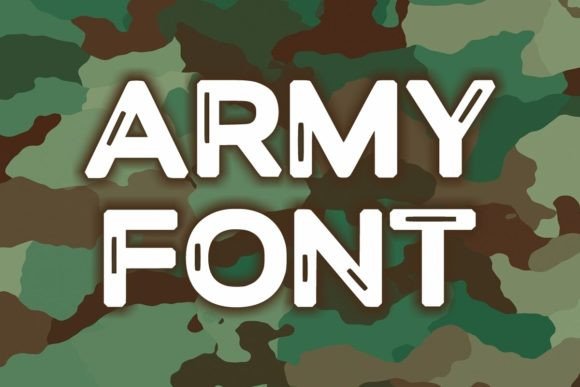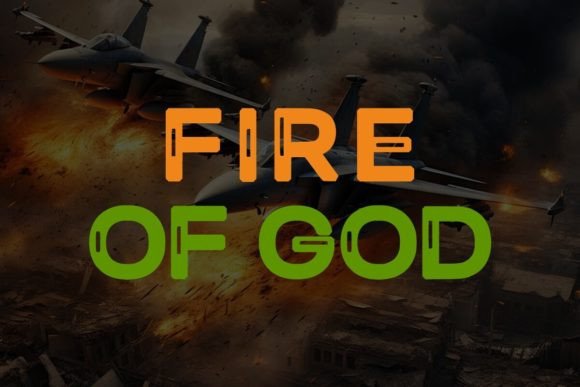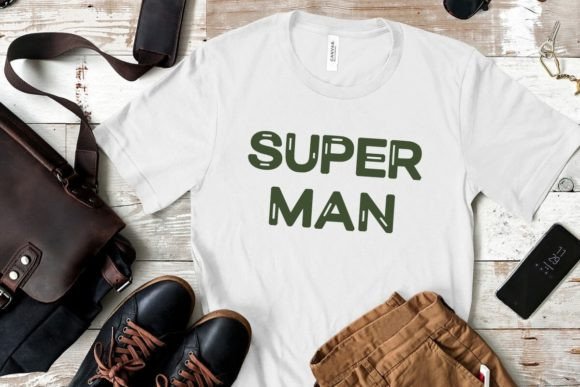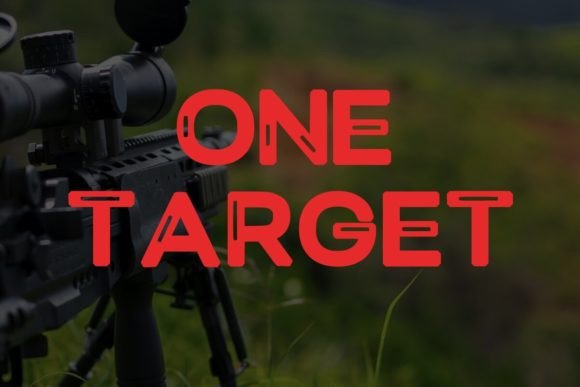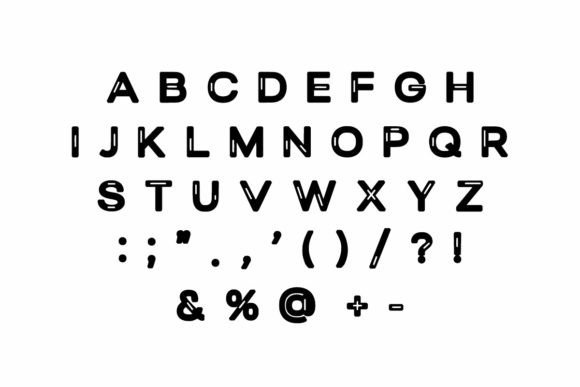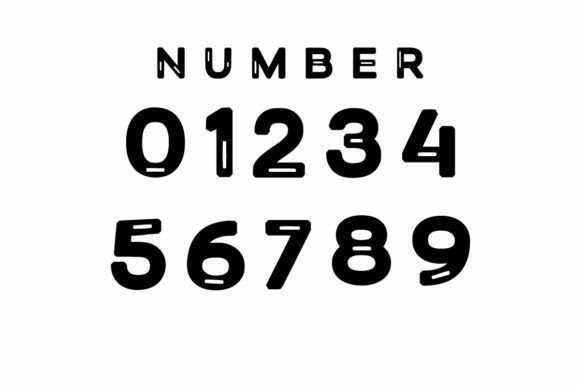
Introduction to Sniper X Font
You’ve spent hours pouring over design concepts, tweaking colors and layouts, but that one final touch is still missing. The perfect font can elevate a project from good to great, and that’s where Sniper X Font comes in.
With its dynamic effect and unique charm, Sniper X Font is the ideal choice for designers looking to add a touch of high-quality flair to their creative project. Whether you’re working on a sporting event logo or a monogrammed design, this bold display font is sure to make a statement.
What sets Sniper X Font apart is its versatility – perfect for use on a transparent background or as a focal point in your design. And the best part? It’s a free download, making it an invaluable resource for designers of all levels.
Key Features of Sniper X Font
- High-quality, professional design suitable for creative projects
- Transparent background for seamless integration with various design elements
- Font size: 256 glyphs, covering a wide range of characters and symbols
- High-resolution design, perfect for printing and digital applications
- Unique, modern aesthetic that can add a touch of sophistication to any design
Honest Review: Sniper X Font
I recently had the chance to work with the Sniper X Font, and I must say it’s a solid addition to any designer’s toolkit. ✨ The font’s high quality is evident from the get-go, with crisp lines and a clean aesthetic that makes it perfect for a wide range of creative projects.
One of the standout features of Sniper X Font is its transparent background, which makes it incredibly versatile and easy to use. Whether you’re designing a logo, a graphic, or a website, this font is sure to make a statement.
Some of the key benefits of Sniper X Font include:
- Transparent background for easy use and customization
While Sniper X Font is a great resource, there are a few limitations to be aware of ⚠️. The font selection is a bit limited, and some users may find the styles a bit too modern for their taste.
Overall, I’m impressed with Sniper X Font, and I’d definitely recommend it to designers looking for a high-quality, easy-to-use font for their next creative project.
Introduction to Sniper X Font
The Sniper X Font is a high-quality, versatile font perfect for any creative project. With its unique design and transparent background, it adds a touch of elegance to your designs. This font is available for free download, making it an excellent design resource for designers of all levels.
Common Use Cases for Sniper X Font
Sniper X Font is perfect for a variety of creative projects, including social media graphics, presentations, logos, brochures, and more. It’s also great for personal projects, such as creating custom invitations or party decorations.